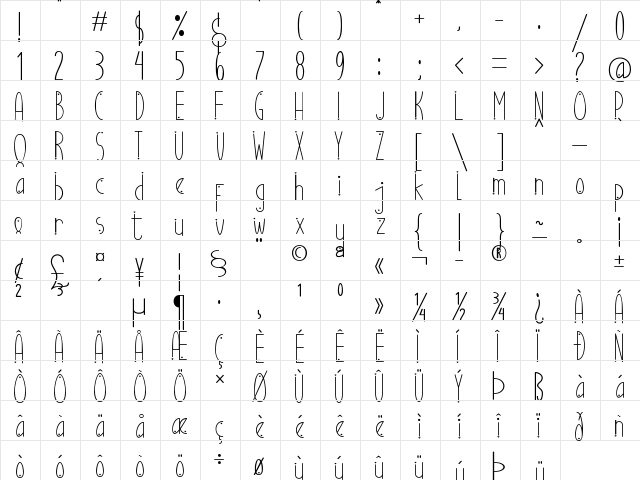
Ubur Ubur with Love alternatif2 Regular
Design Context for Ubur Ubur with Love alternatif2 Typeface
Ubur Ubur with Love alternatif2 offers clean, dependable letterforms without strong stylistic allegiance, making it a practical choice for designers who need flexibility.
Pro Tip: Use Ubur Ubur with Love alternatif2 in both headline and body roles to test its range before committing to a single application.